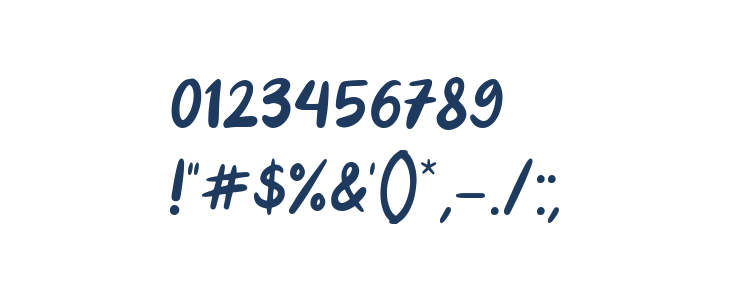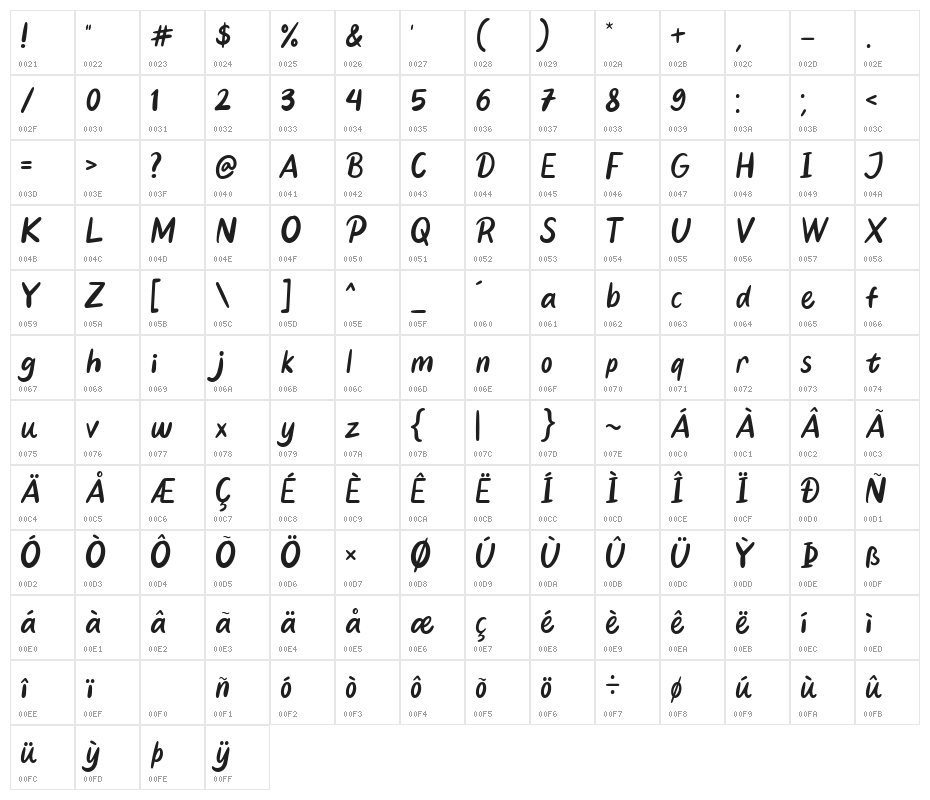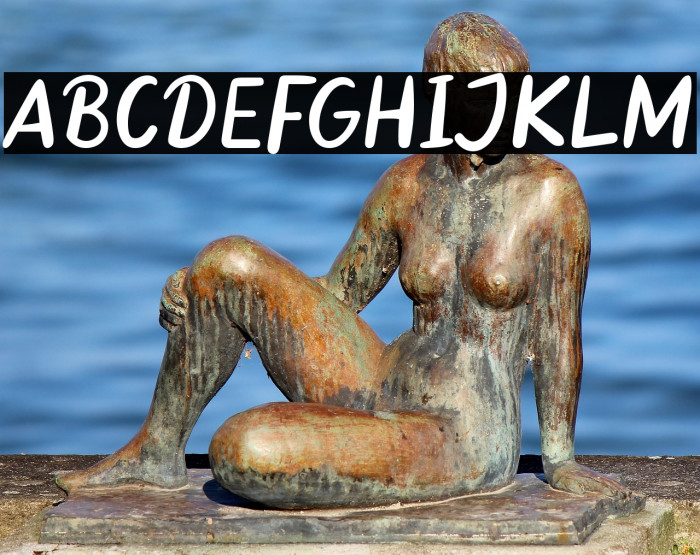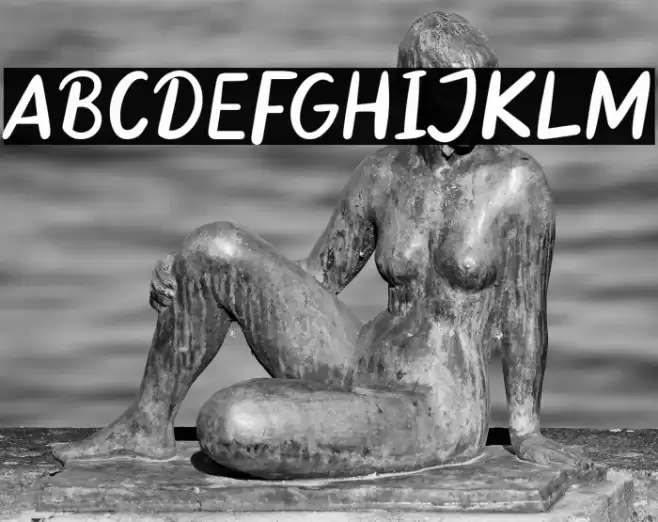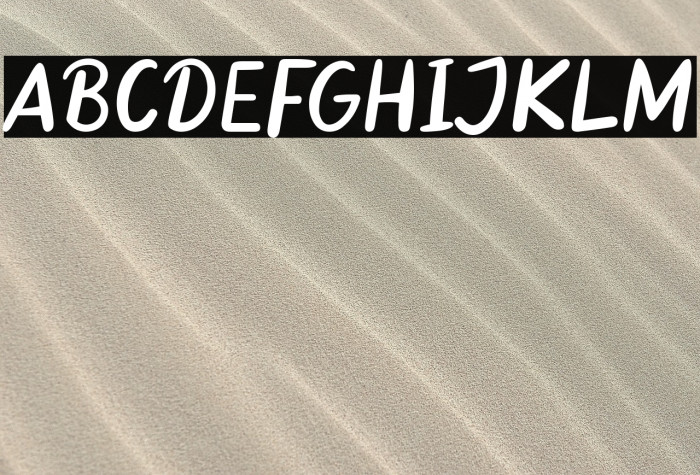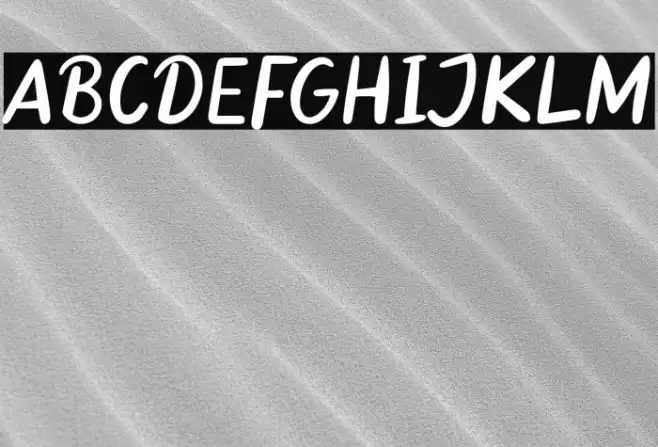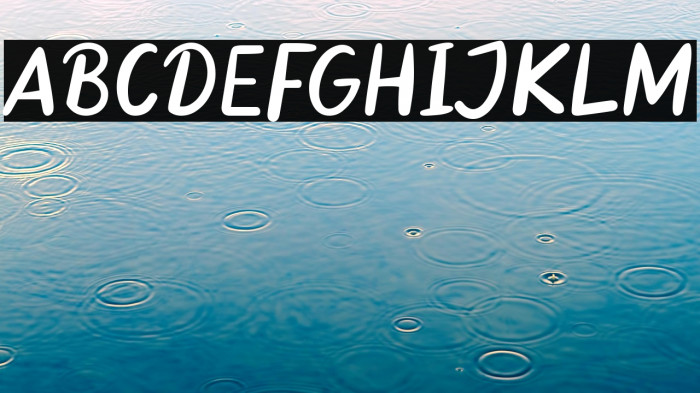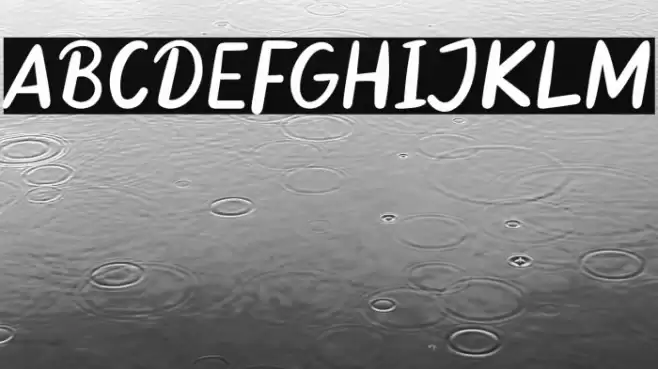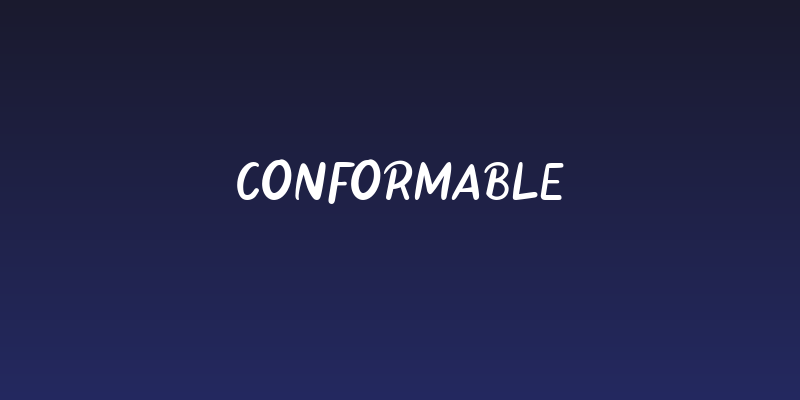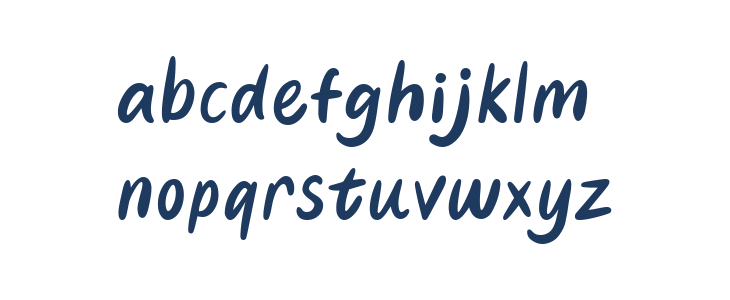
Conformable Font
Conformable Description
This font features a playful and dynamic handwritten style, characterized by its smooth, flowing curves and slightly slanted orientation. The letters are bold and rounded, giving a friendly and approachable appearance. The uppercase and lowercase letters maintain a consistent style, with the lowercase letters slightly smaller and more compact. The numerals are clear and legible, matching the overall aesthetic of the alphabet. Special characters are well-integrated, maintaining the font's cohesive look. This font's informal and lively nature makes it suitable for creative and casual applications.